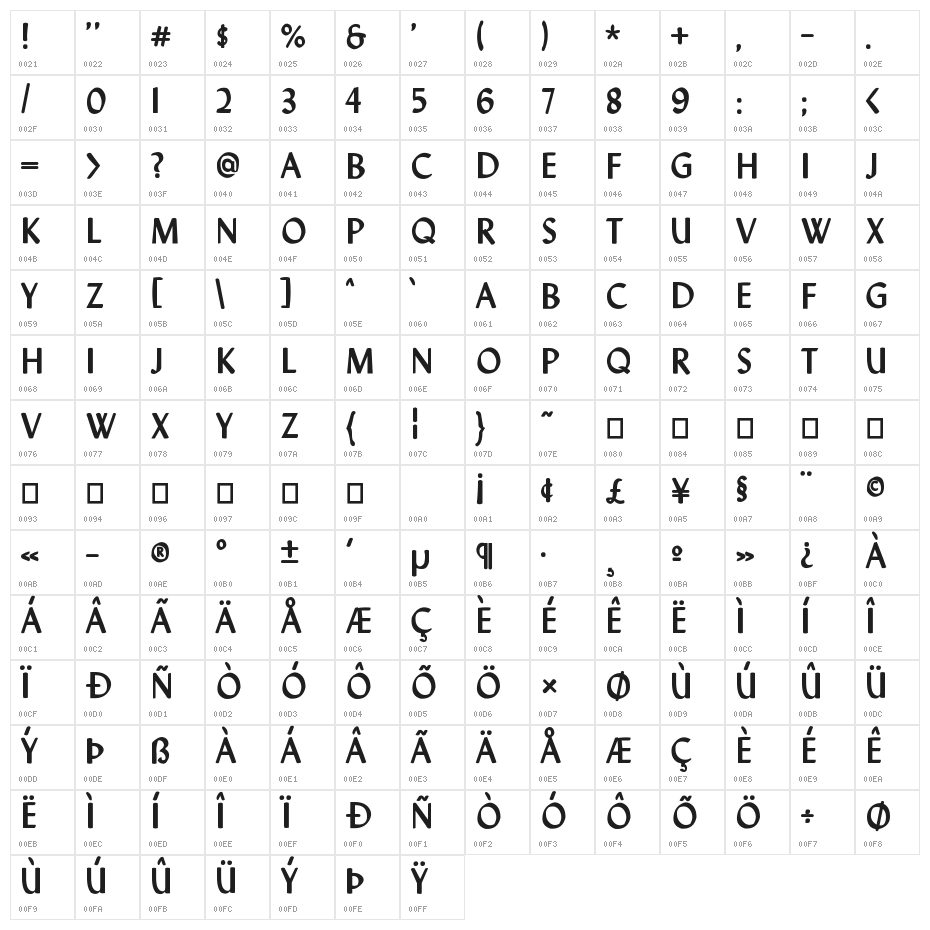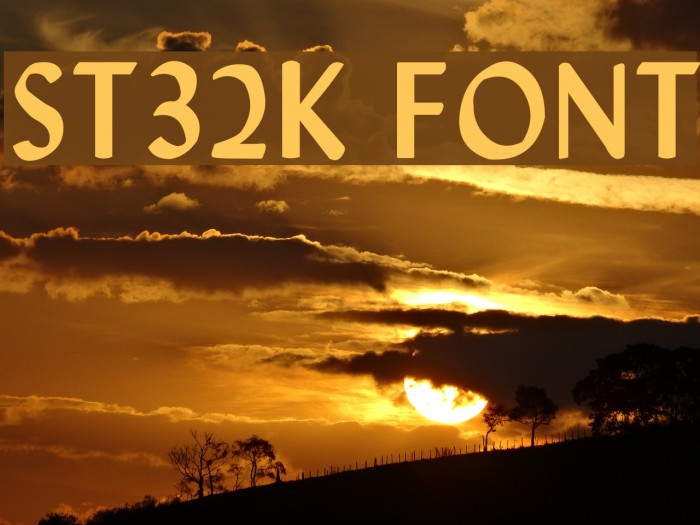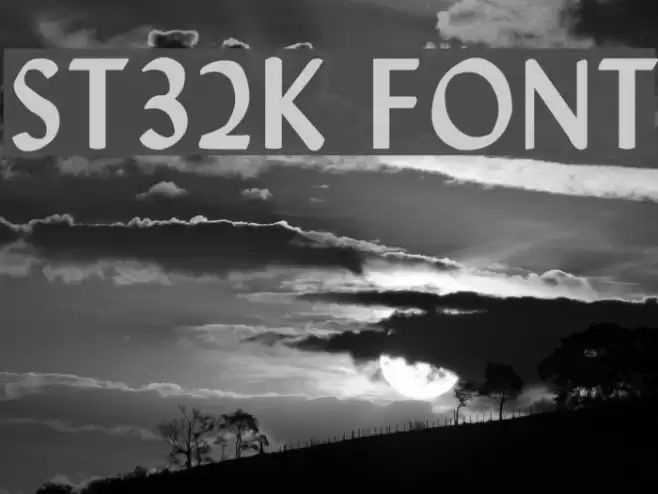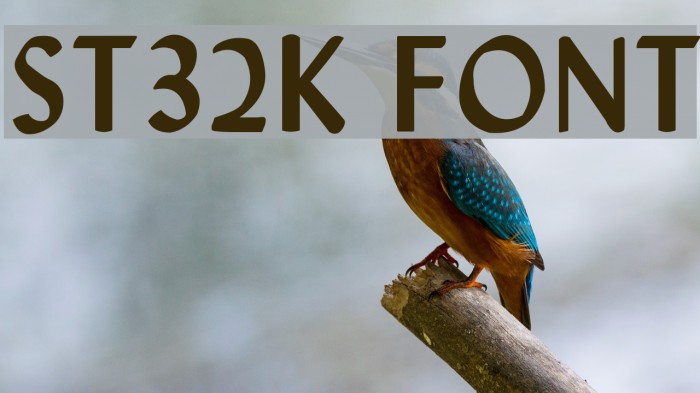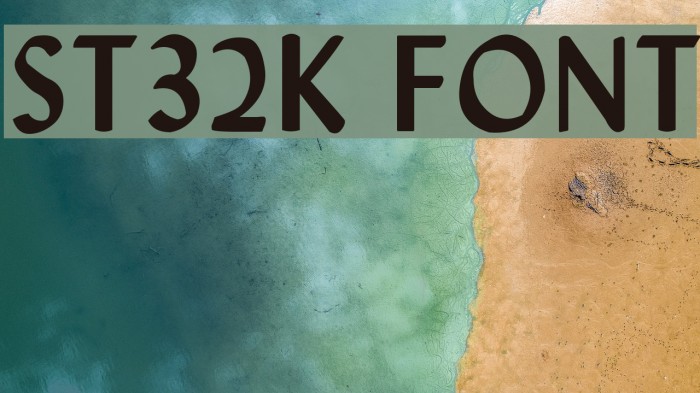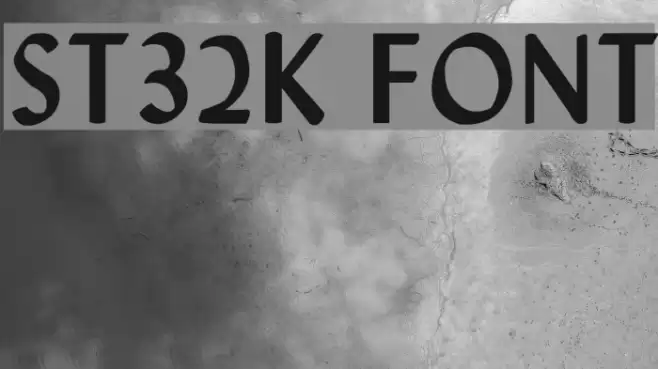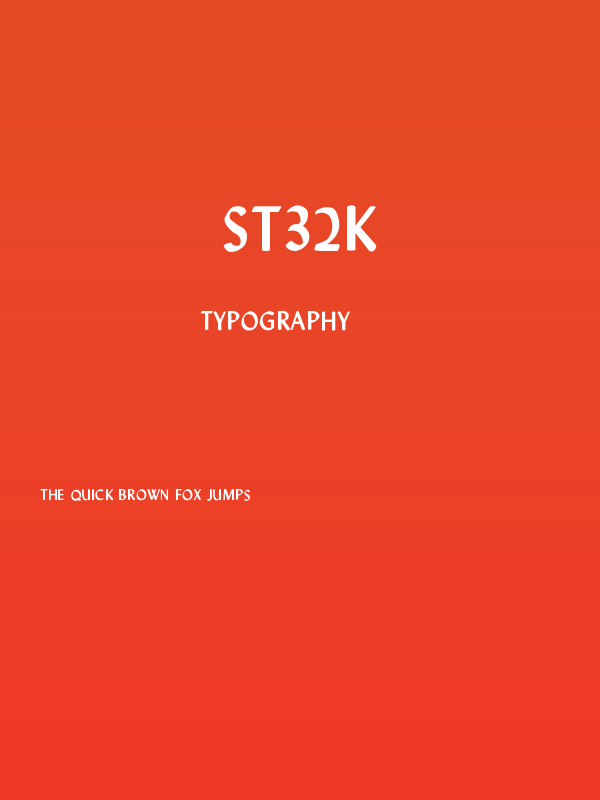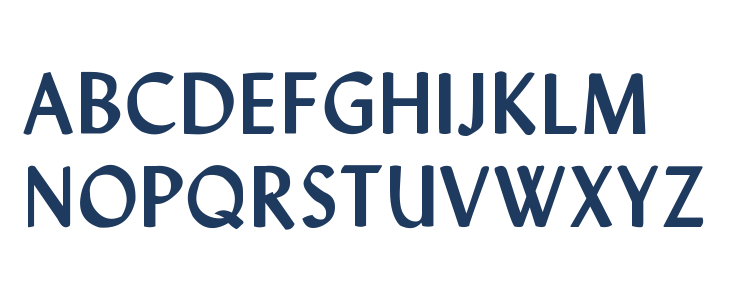
St32k Font
St32k Description
This font features a clean and modern sans-serif style with uniform stroke widths, giving it a balanced and professional appearance. The characters are well-proportioned, with a slightly geometric influence that adds to its contemporary feel. The uppercase letters are bold and assertive, while the lowercase letters maintain a consistent and harmonious flow. The numerals are clear and legible, making them suitable for various applications. Special characters are included, providing versatility for different design needs. Overall, this font is ideal for projects that require a modern and straightforward aesthetic.